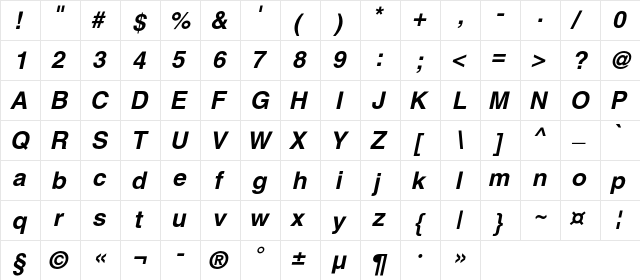
Helios Bold Italic Font Preview
Design Context for Helios Typeface
Helios takes a measured approach to typography — its balanced proportions and neutral character make it a reliable workhorse for both digital and print work. Its italic angle brings a sense of urgency and motion to the letterforms. The heavy weight commands attention and anchors typographic hierarchies.
Pro Tip: Try Helios for annotation and caption copy alongside an upright companion — the contrast in angle creates a dynamic but ordered typographic system.